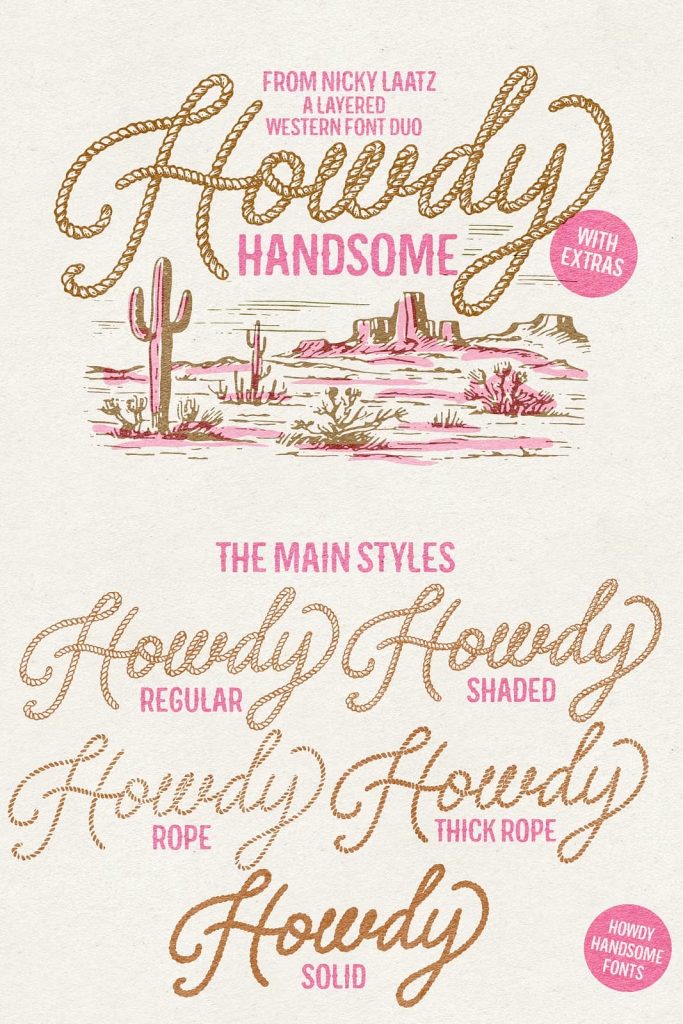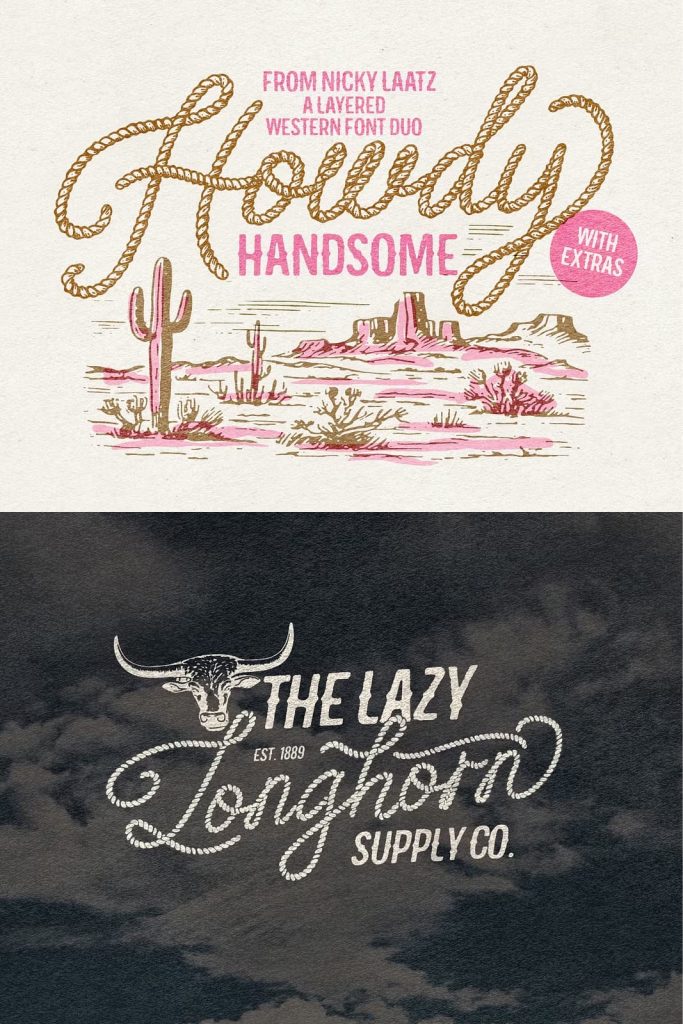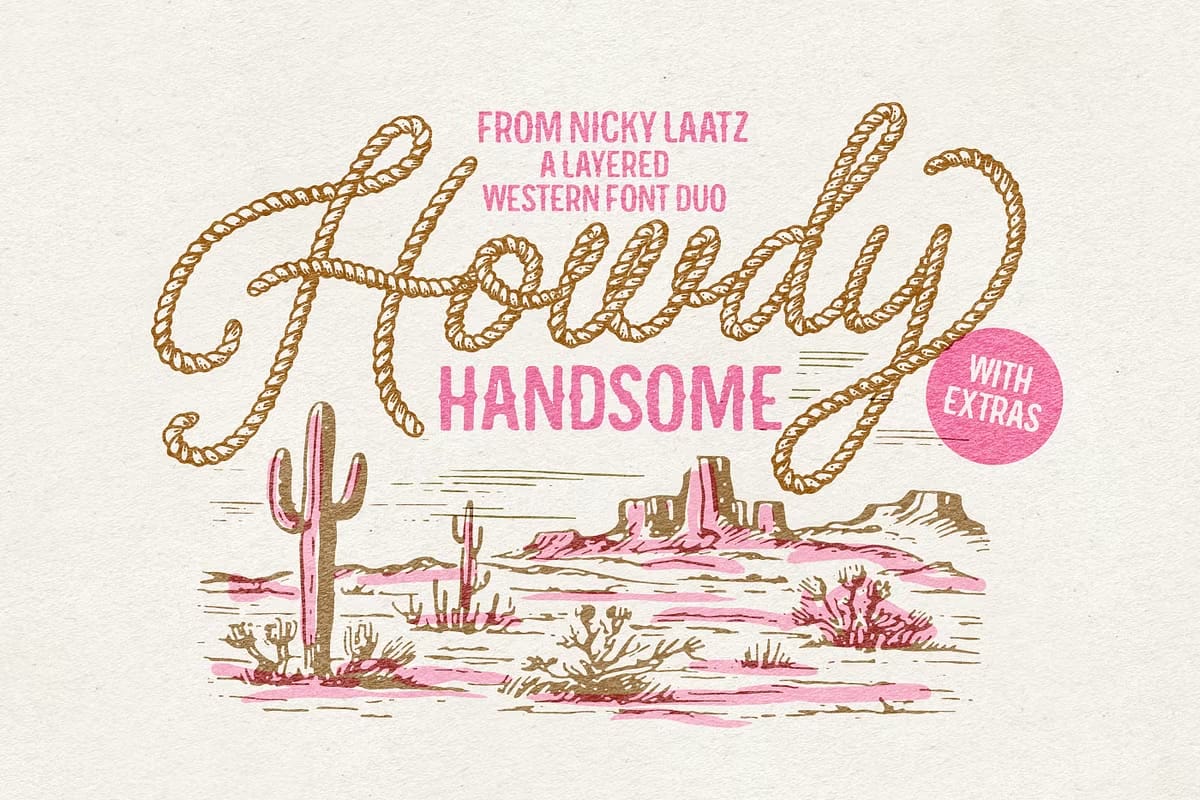
Howdy Handsome Layered Font DuocoreografyJune 19, 2025Fonts Say hello to Howdy Handsome – A Layered Western Font Duo with endless possibilities. Download